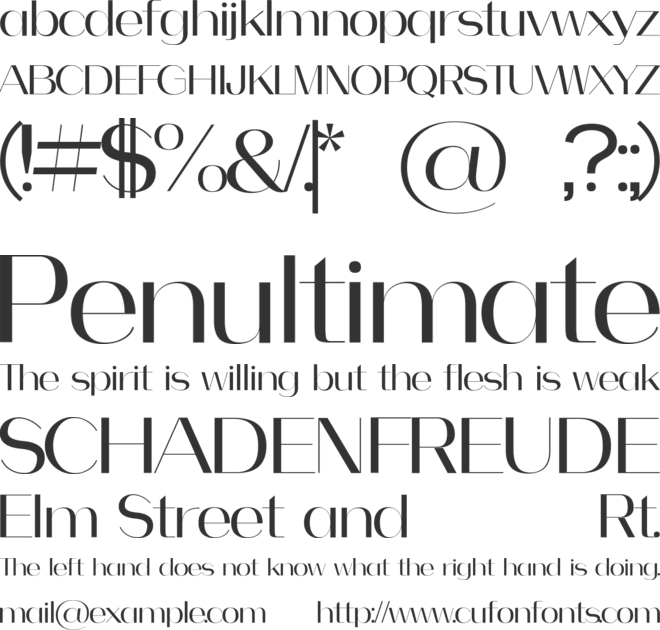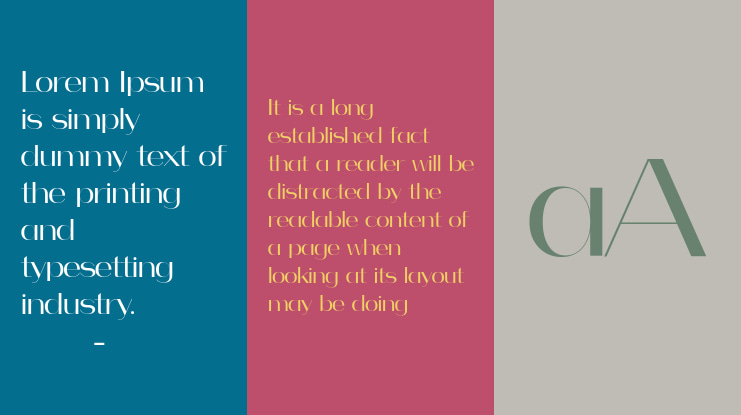
faddish Font Family
Faddish is a classy sans serif with multilingual support—perfect for fashion branding, editorial finesse, and minimalist packaging.